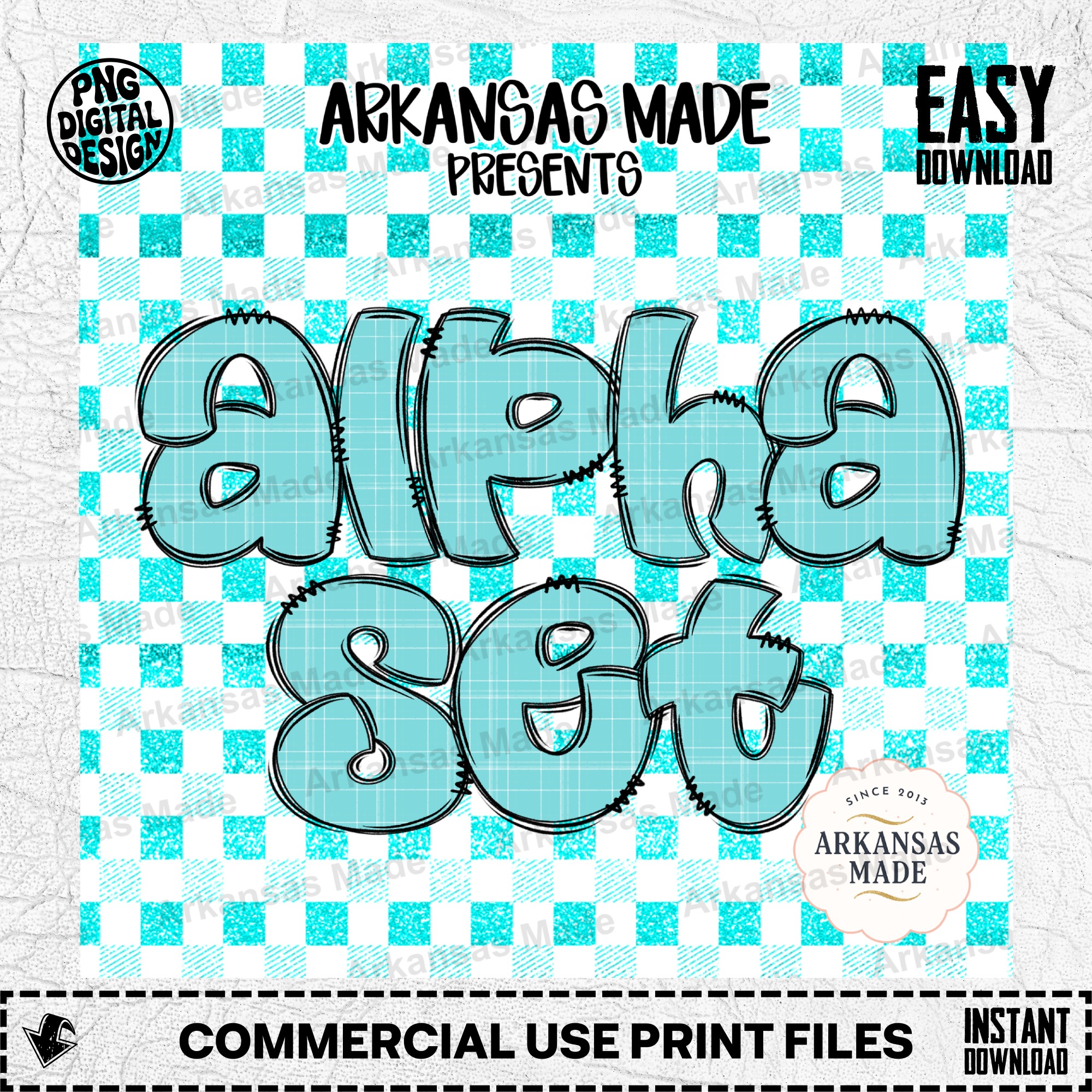
Light Blue Plaid Alpha Set PNG, Bubbly Faux Stitch Alphabet Letters, Teal Plaid Font Digital Download Craft Supply
Dive into crafting with this charming Light Blue Plaid Alpha Set PNG! Featuring bubbly, faux stitched letters perfect for all your creative projects. This delightful digital alphabet boasts a playful teal plaid texture and a cute hand-drawn outline, ideal for personalized items, sublimation, and DIY gifts. Elevate your designs with these unique craft supplies, perfect for graphic designers, crafters, and small business owners alike.